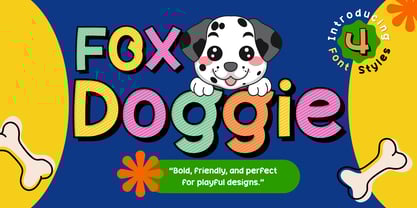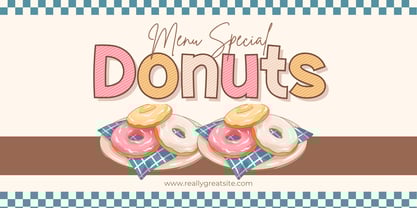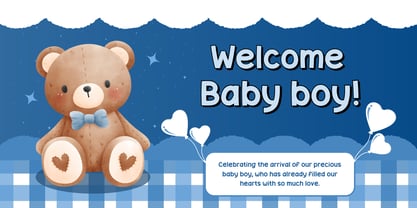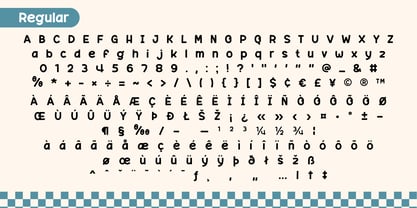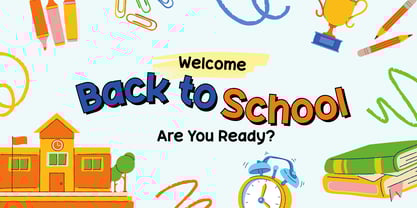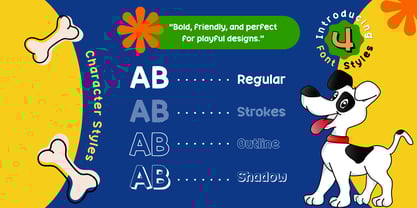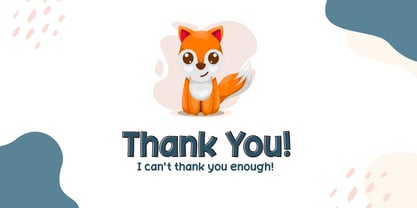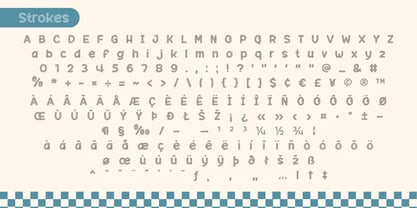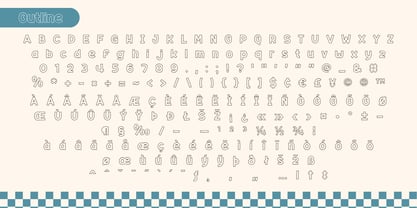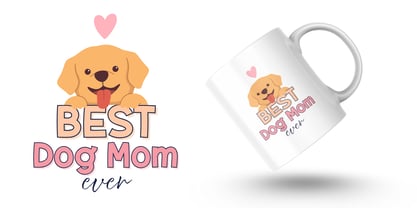
Fox Doggie
by Fox7
The Fox Doggie Font Family was designed by Rattana Rattanawan and published by Fox7. Fox Doggie contains 4 styles and family package options.
Fox Doggie is a bold, friendly, and playful font family with 4 styles: Regular, Strokes, Outline, and Shadow. Perfect for children’s books, stickers, games, posters, or playful packaging, Fox Doggie brings charm, texture, and a bubbly vibe to every letter. It’s easy to layer, fun to mix, and full of delightful character!